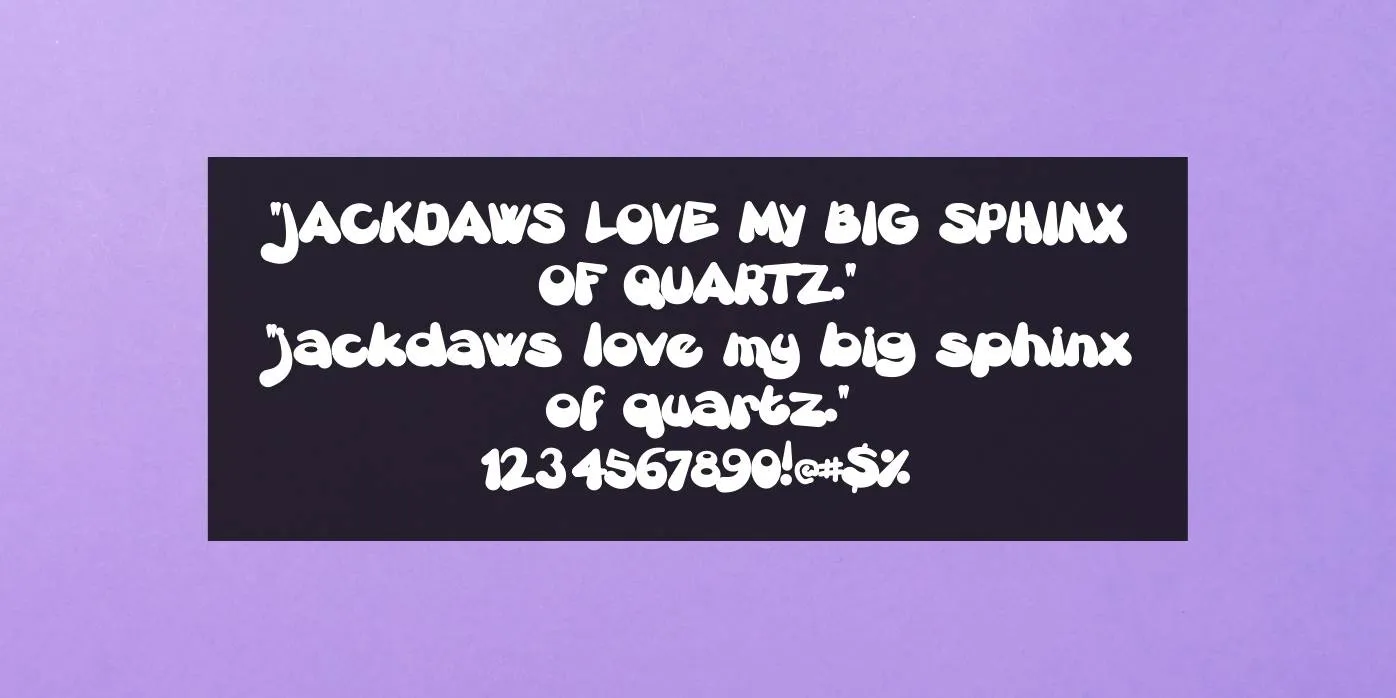
Gretoon Font
Here, we are consulting on a very famous typeface named Gretoon Font. It belongs to the Comic typeface family. This stylish typeface was developed and published by Mans Greback. This tremendous typeface is available in three unique styles.
This typeface was released to the general public in 2011. Gretoon Typeface has a very retro and vintage look. The letterforms are old-fashioned with rounded corners. It gives an overall Comic book feel to the design.
This tremendous typeface has outstanding and special Glyphs. Also, it includes 250 unique characters. For advanced features and classic results download this typeface and put it in your projects.